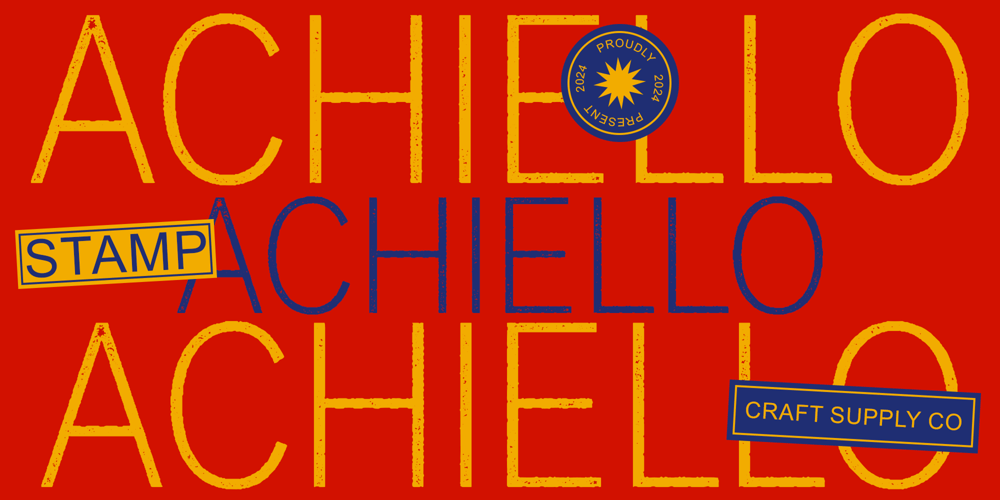
Achiello Stamp Font Family was designed by Trio Nazzar Saputra, Wahyu Hadi Yuana and published by Craft Supply Co. Achiello Stamp contains 2 styles and family package options. Achiello Stamp: Vintage Elegance in Every StrokeThin Low Contrast DesignAchiello Stamp boasts a thin sans serif design with low contrast, offering an elegant and refined appearance. Its slender letterforms exude sophistication and modernity.Stamp EffectThe font is enhanced with a subtle stamp effect, adding a touch of vintage charm to its overall aesthetic. This effect imbues each character with a sense of authenticity and timeless appeal.Vintage InspirationDrawing inspiration from vintage typography, This font combines classic elegance with contemporary minimalism. Its refined design pays homage to the timeless styles of the past while maintaining a modern edge.Versatile ApplicationDespite its vintage-inspired design, This font is incredibly versatile in its application. Whether used for branding, editorial design, or digital projects, it adds a hint of vintage flair to any composition.Timeless SophisticationThis font offers a perfect blend of vintage elegance and modern simplicity. Its thin low contrast design, coupled with the subtle stamp effect, creates a font that is both sophisticated and nostalgic. Elevate your designs with the timeless charm of Achiello Stamp.